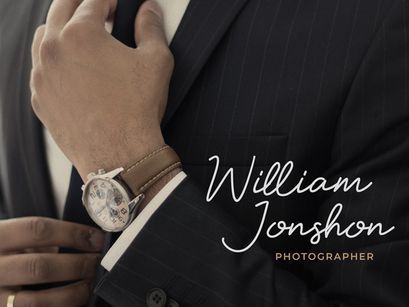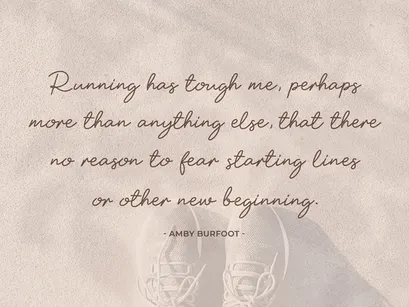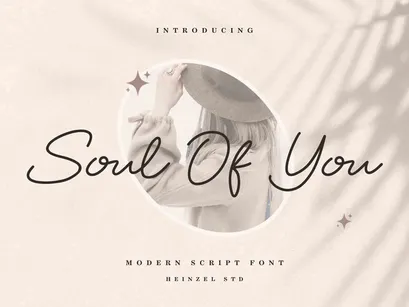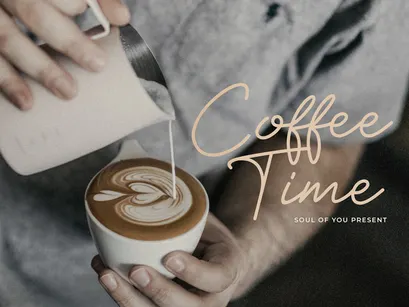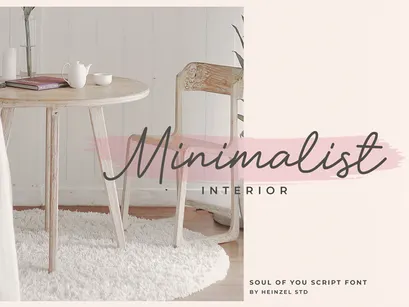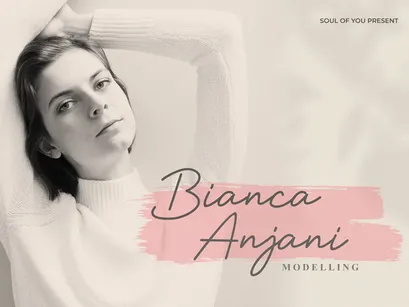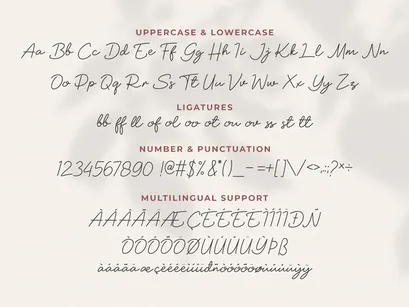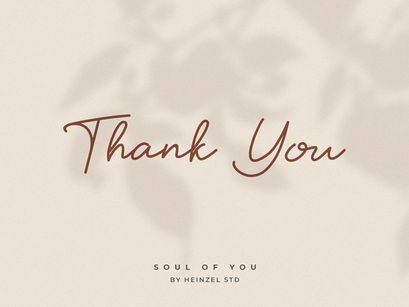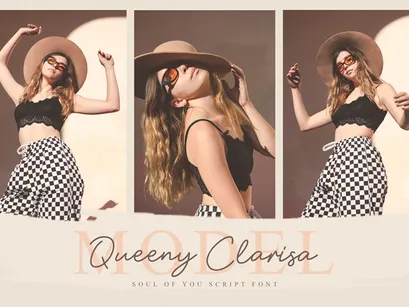
Soul Of You - Modern Script Font
Soul Of You is a flowing handwritten font, described by an elegant touch, perfect for your favorite projects. It looks stunning on wedding invitations, thank you cards, quotes, greeting cards, logos, business cards and every other design which needs a handwritten touch. Fall in love with its incredibly distinct and timeless style and use it to create spectacular designs!
• Ligatures
• Multilingual Support